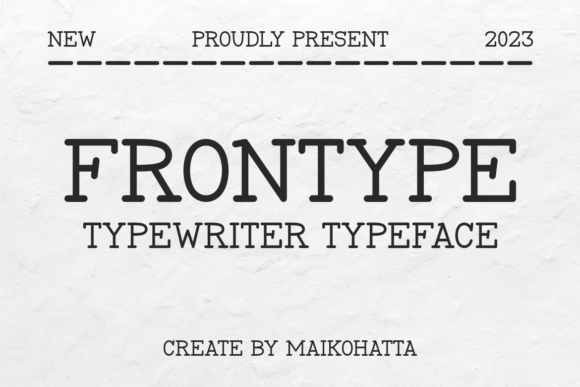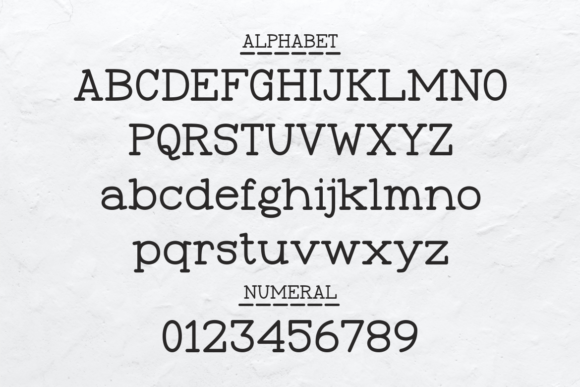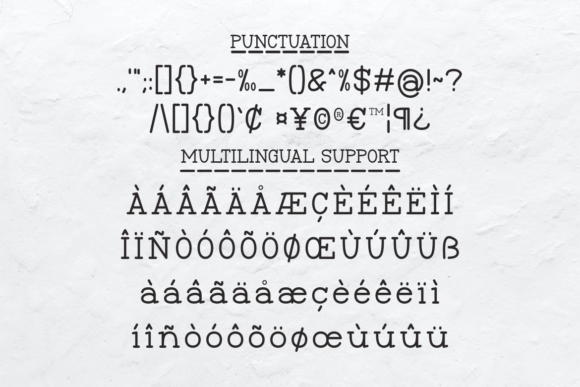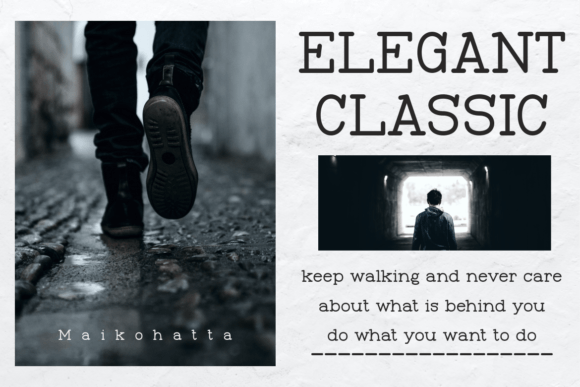
Frontype Font: A Retro Typewriter Serif for Vintage Designs & Branding
About the Frontype Font
Discover the charm of Frontype Font. This font is a perfect blend of modern aesthetics and classic appeal. Frontype combines traditional serif elements with the aesthetics of a typewriter, creating a captivating font that imparts a classic feel to any design it’s used in. It produces a unique appearance and is often employed to achieve a retro or vintage impression.
Frontype’s strong, yet slightly imperfect character makes it ideal for headlines, short paragraphs in posters or invitations, and branding applications requiring a vintage or retro aesthetic. Its unique texture works well in packaging design, adding a tactile feel to the product identity. However, its low x-height and distinct letterforms make it unsuitable for extended body text or UI elements where high readability is crucial.
For a balanced aesthetic, pair Frontype with a clean sans-serif like Helvetica Neue for a modern contrast, or a more traditional serif such as Garamond for a harmonious classic feel. A playful script font could also create an interesting juxtaposition, depending on the desired effect.
The overall personality of Frontype is confident and slightly rebellious, blending classic elegance with a touch of ruggedness. This makes it a perfect choice for brands that aim for a sophisticated yet approachable image, such as craft breweries, vintage clothing stores, or independent coffee shops.
Frontype Font Usage Examples
Frontype Font Example